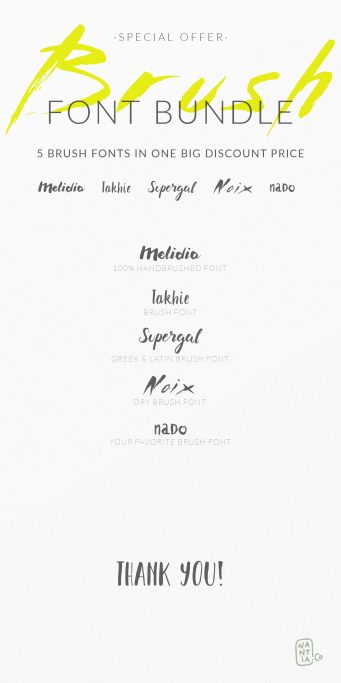
Free Brush Fonts On Google Docs | Premium Fonts
Free and Premium Quality Fonts - Best Premium FontsUse our free brush font generator below to create your own custom design. This series looks at what google fonts is and shares interesting examples and combinations of fonts that can take your project to the next level. Googles built in additional fonts are very useful but they come with two problems.
brush fonts on google docs
Brush fonts on google docs. We have 15 free script brush script google web fonts to offer for direct downloading 1001 fonts is your favorite site for free fonts since 2001. Google fonts is a library of over 800 different typefaces completely ready to be embedded in your web project. For a more vintageclassic or elegant look check out the elegant script fonts and for a modern look check out the modern script fonts. We all love a good handwriting font for that warmth and handmade artisanal feel it brings to projects.
This is a collection of the best handwriting fonts from google fonts. Brush fonts are made to look like they were created with a brush. All you have to do is add a special stylesheet link to your html document then refer to the font in a css style. This font pack should work on all galaxy brand phones.
With the help of an easy to use add on called extensis fonts which will give you access to the 1200 fonts from the google font collection. Read the feature google fonts. First not every google font makes it into the google fonts system and second you have to go into google fonts every time you want to use a different font. The add on also allows you to show only specific font.
You dont need to do any programming. Add fonts to google docs using extensis fonts. It is an umbrella term for a wide range of styles such as elegant brush script brush lettering or casual and dry textured brush stroke. Making the web more beautiful fast and open through great typography.